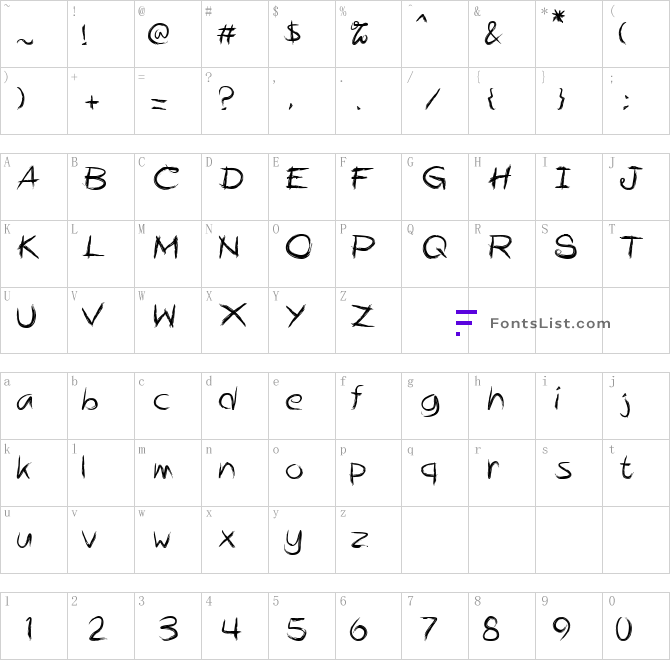
- Font Name:Alphahate
Alphahate.ttf is a very beautiful artistic font, Alphahate.ttf is widely used in the design and printing of various books and pictures,Alphahate.ttf has a strong visual impact,Alphahate.ttf is a commonly used font in newspapers, magazines and books, and is used in posters, e-commerce Poster design, store design, logo design, font design and other fields.Alphahate.